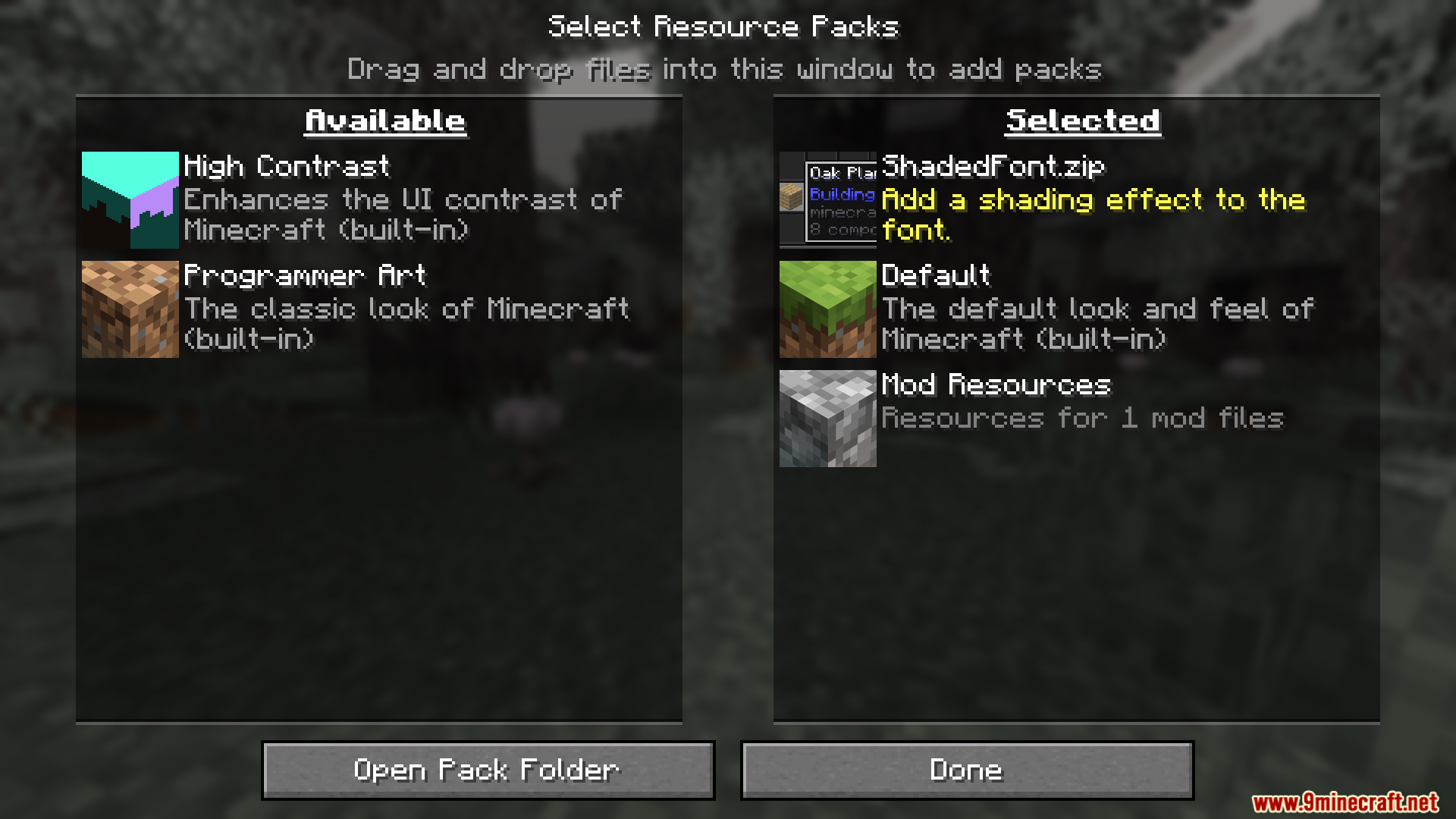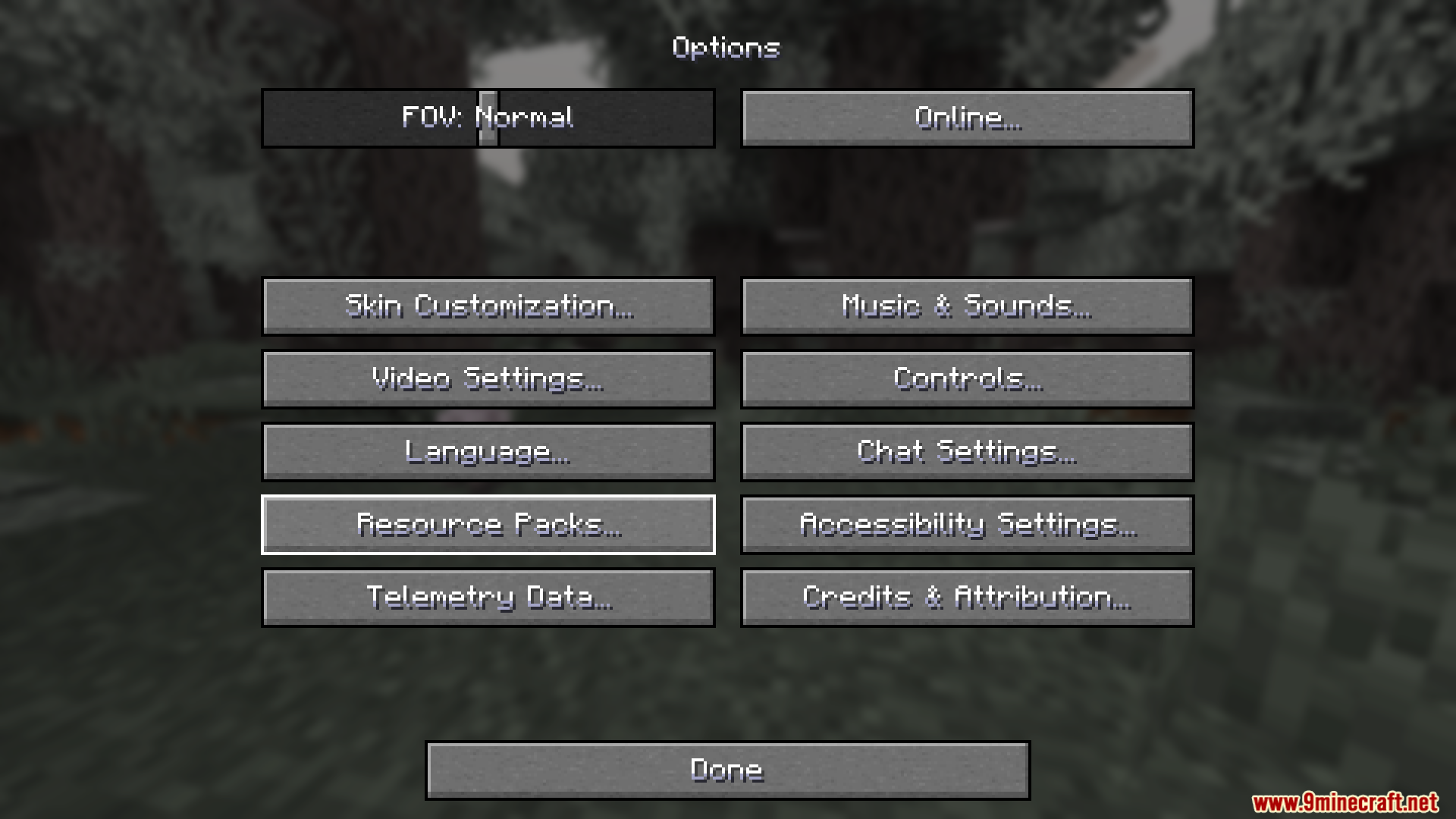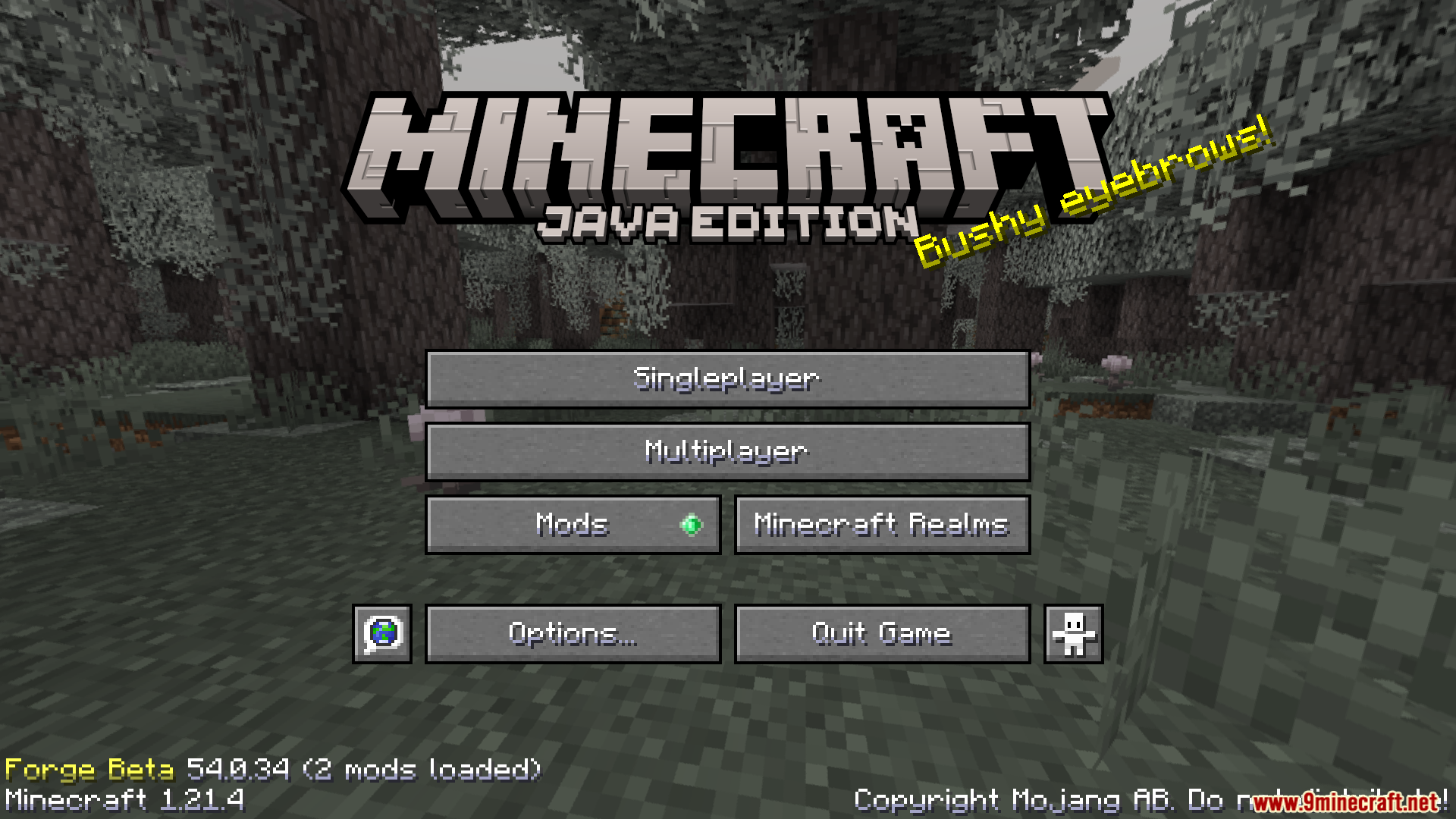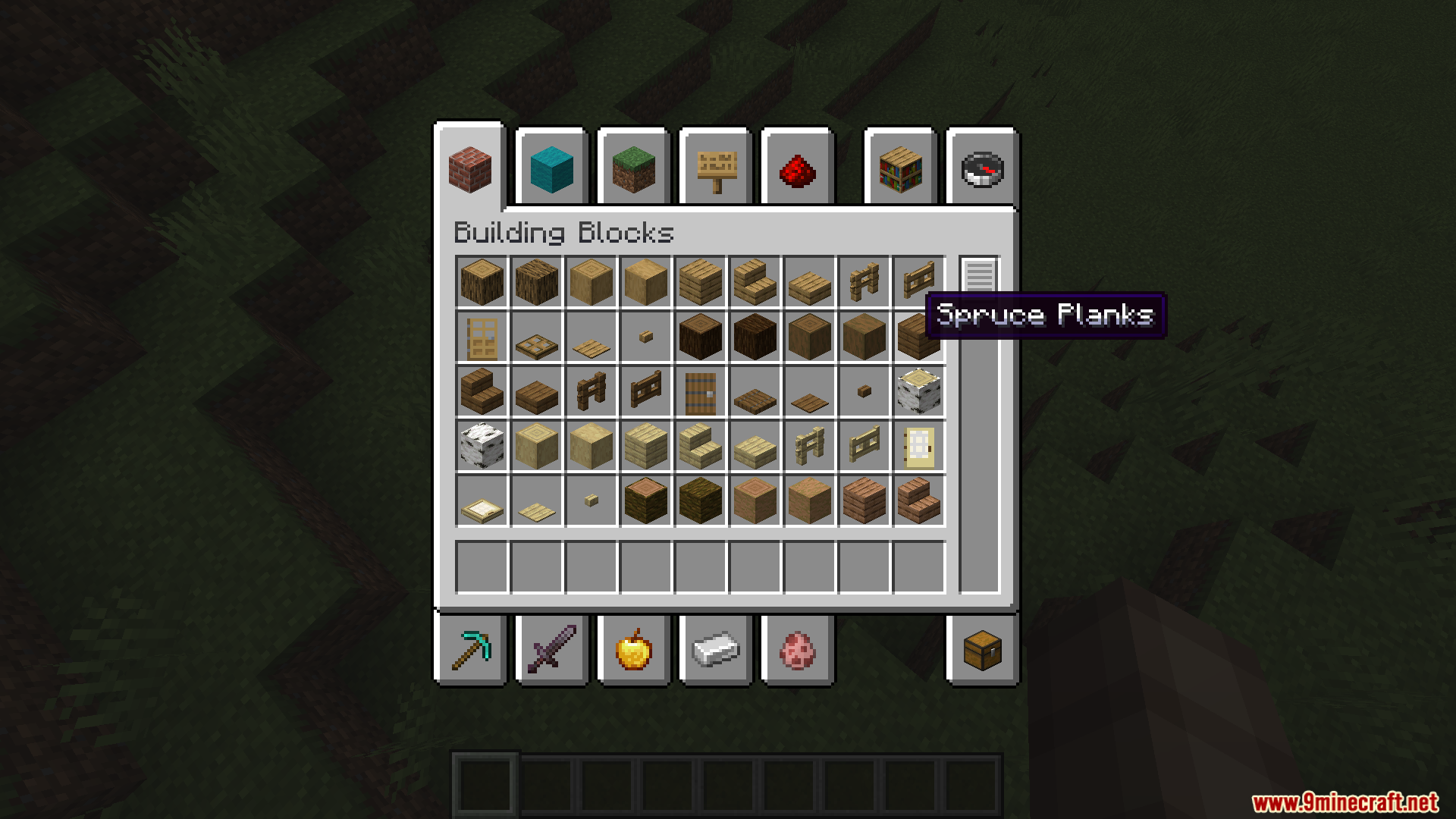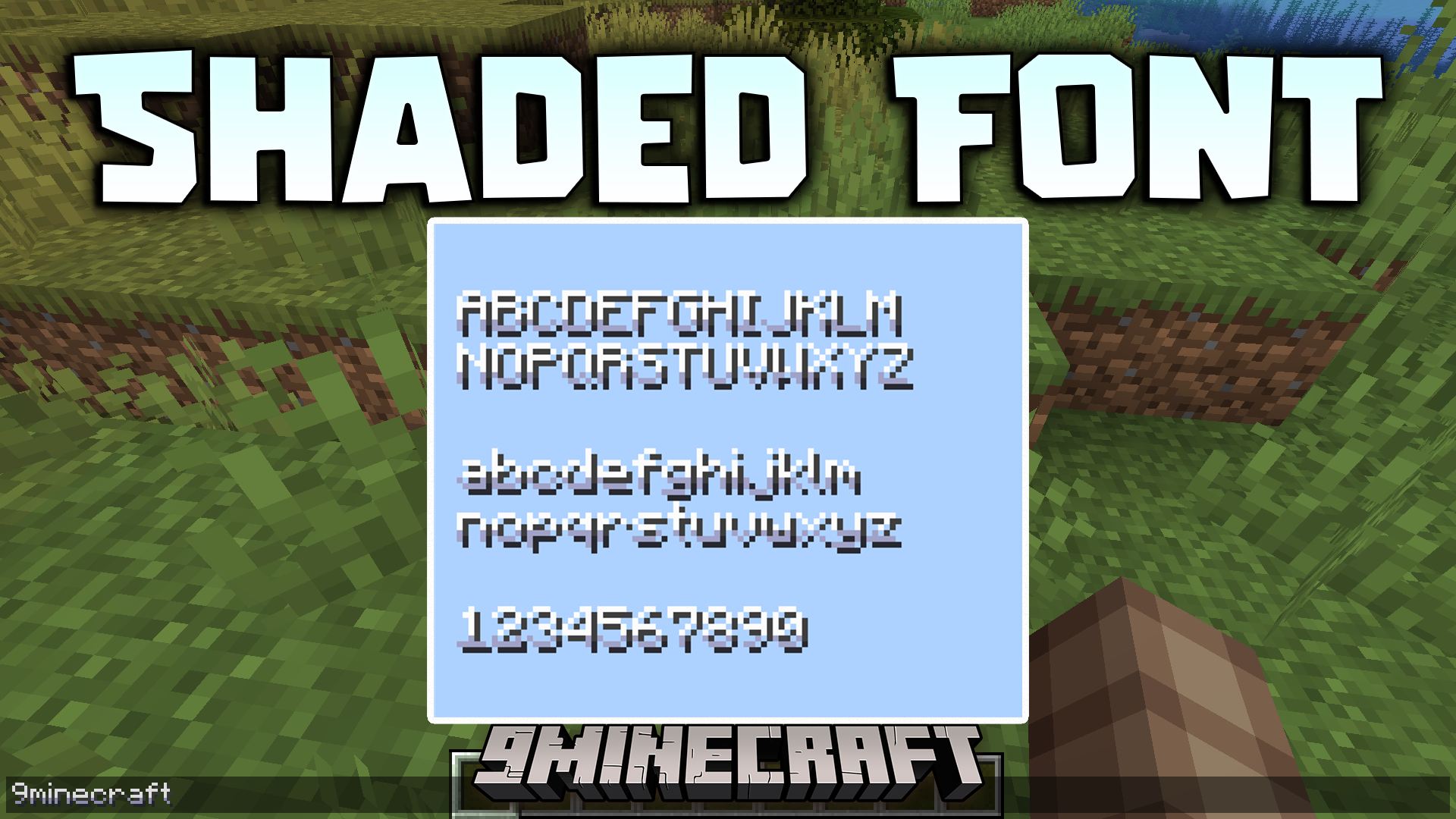
Shaded Font Resource Pack (26.2, 1.20.1) – Texture Pack
Shaded Font Resource Pack replaces the default typeface with a stylized, shaded font. It gives text in menus, chat, signs, and books a more decorative look, adding depth and atmosphere.